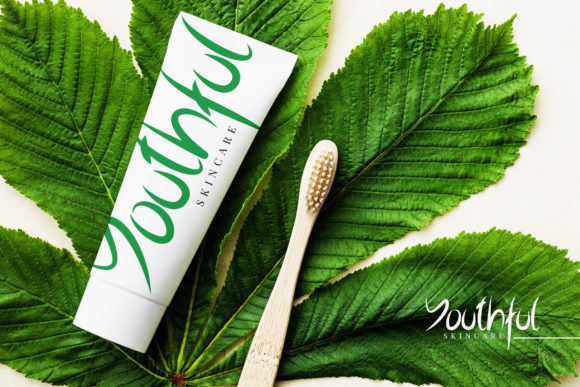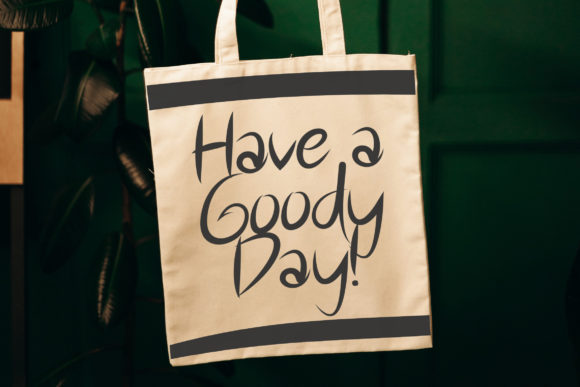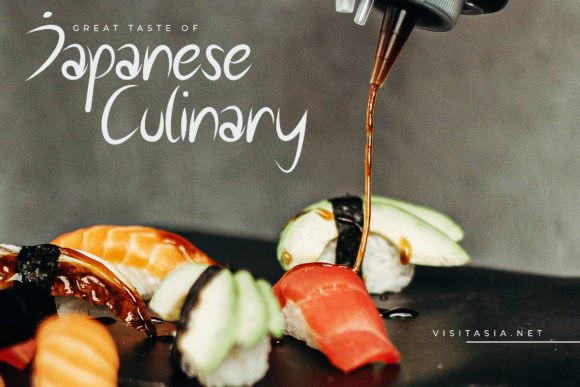
Introduction to Endivez Font
Endivez is a fancy looking handwritten font.
It has a simple,modern and relaxed style Add it to your most creative ideas and notice how it makes them come alive.